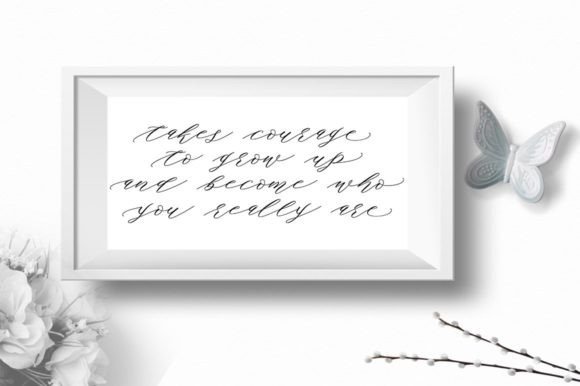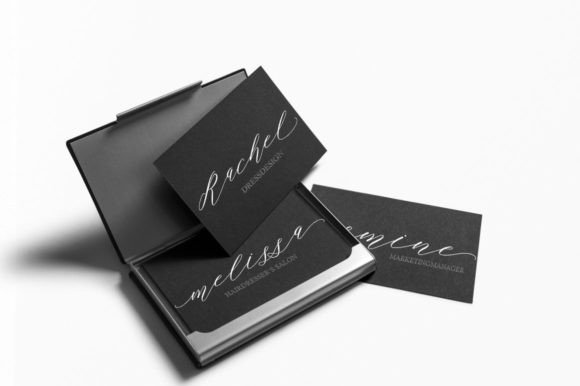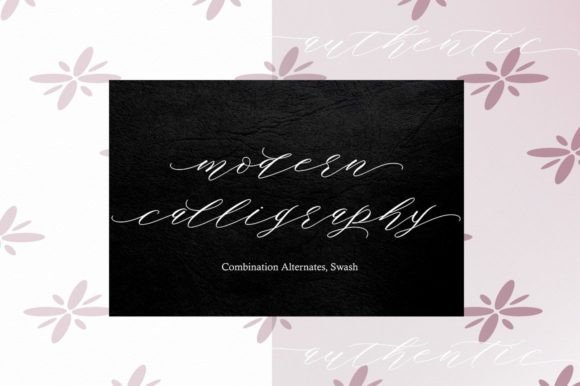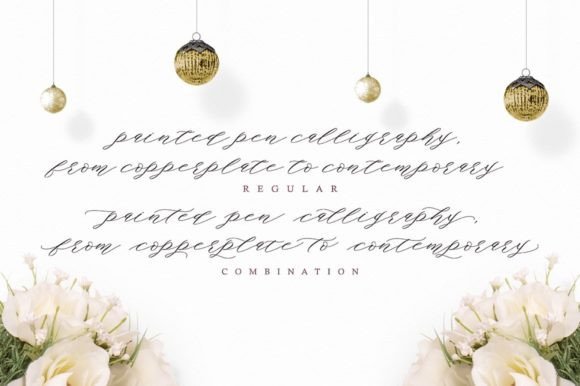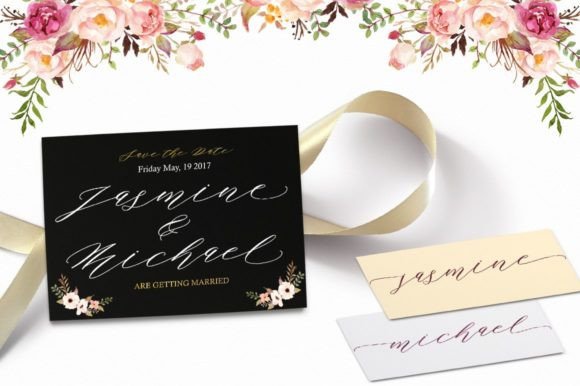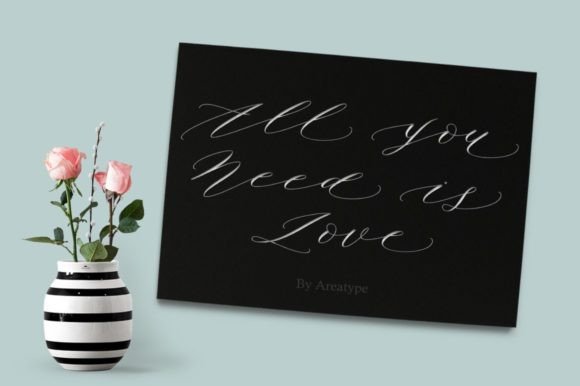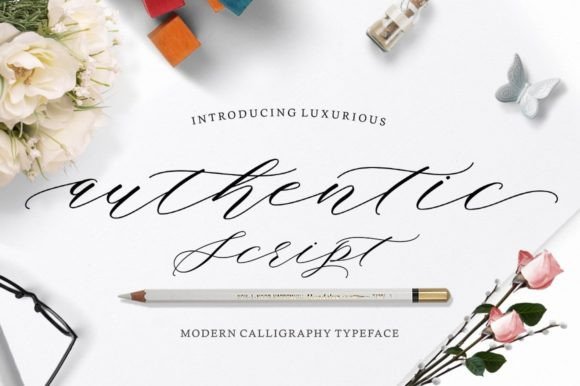
The Power of Authentic Font: Elevate Your Design with Modern Calligraphy
In the world of design, typography plays a crucial role in communicating a message, evoking emotions, and creating a lasting impression. Among the numerous font styles available, Authentic Script stands out as a modern calligraphy typeface that can add a touch of elegance and sophistication to various design projects. In this article, we’ll explore the features and benefits of Authentic Font and how it can be used to elevate your designs.
What is Authentic Script?
Authentic Script is a modern calligraphy typeface that exudes a sense of casual elegance and prettiness. Its unique design is characterized by swashes, which add a touch of flair and sophistication to any text. This font is incredibly versatile and can be used for a wide range of purposes, including:
• Title and heading design
• Signature and logo creation
• Letterhead and signage
• Labels and packaging design
• Newsletters and magazine headers
• Posters and flyers
• Badges and emblems
Key Features of Authentic Font
So, what makes Authentic Script a standout font? Here are some of its key features:
• PUA Encoding: Authentic Script is PUA (Private Use Area) encoded, which means that you can access all the amazing glyphs and ligatures with ease. This feature allows you to unlock the full potential of the font and create stunning designs.
• Swashes and Ligatures: The font features beautiful swashes and ligatures that add a touch of elegance and sophistication to your designs.
• Modern Calligraphy Style: Authentic Script boasts a modern calligraphy style that is both casual and pretty, making it perfect for a wide range of design applications.
Benefits of Using Authentic Font
So, why should you choose Authentic Script for your design projects? Here are some benefits of using this font:
• Elegance and Sophistication: Authentic Script adds a touch of elegance and sophistication to any design project, making it perfect for high-end branding, wedding stationery, and luxury packaging.
• Versatility: The font’s versatility makes it suitable for a wide range of design applications, from titles and headings to logos and signage.
• Easy to Use: With PUA encoding, accessing glyphs and ligatures is a breeze, making it easy to create stunning designs even for those without extensive design experience.
Tips for Using Authentic Font
To get the most out of Authentic Script, here are some tips to keep in mind:
• Experiment with Swashes: Don’t be afraid to experiment with different swashes and ligatures to create unique and eye-catching designs.
• Pair with Other Fonts: Authentic Script pairs well with other fonts, so don’t be afraid to combine it with other typefaces to create stunning contrast and visual interest.
• Use for Headings and Titles: The font’s elegant and sophisticated design makes it perfect for headings and titles, adding a touch of luxury to any design project.
Authentic Script is a powerful and versatile font that can elevate your design projects to the next level. With its modern calligraphy style, swashes, and PUA encoding, this font offers endless possibilities for creative expression. Whether you’re a designer, crafter, or DIY enthusiast, Authentic Font is an excellent addition to your typography arsenal. So why not give it a try and experience the power of Authentic Script for yourself?